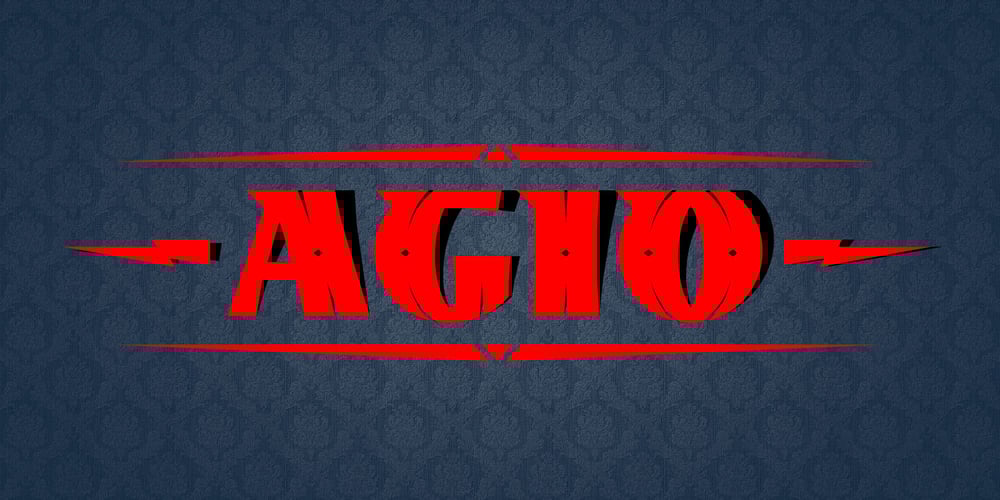
Agio Font Family was designed by Valery Zaveryaev and published by Gaslight. Agio contains 2 styles and family package options. Agio – a heavy contrast style font with cuts on the top of the some glyphs and spurs on top left corner of every glyphs. Also Agio has some decorative styles for glyphs and decorative elements.